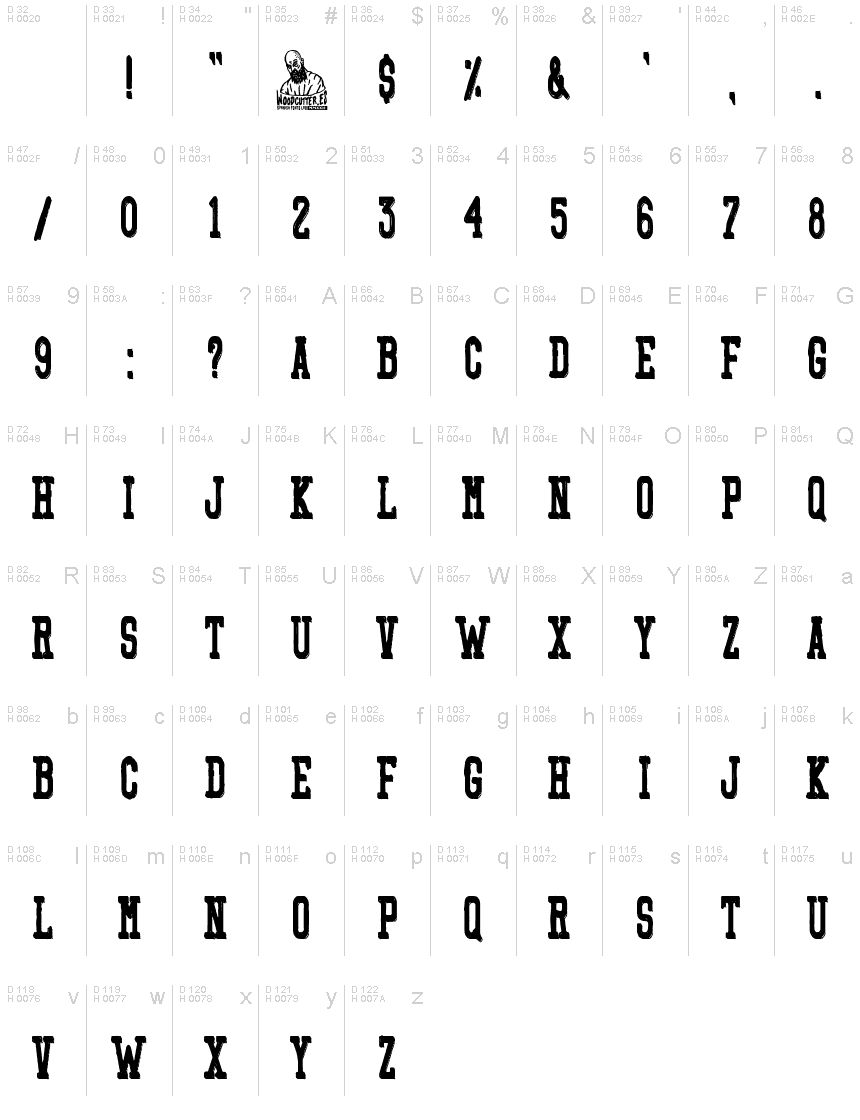
Los Carlistas
Los Carlistas, a striking display font by Woodcutter, embodies the essence of old-school Western design. With its unique blend of vintage charm and ruggedness, this font is perfect for projects that require an extra-condensed typeface to make a bold statement.
From wild west-themed posters and signage to vintage-inspired branding materials, Los Carlistas adds authenticity and character to any design. Let this captivating font transport your audience back in time while infusing your projects with a touch of nostalgic flair.
Los Carlistas.